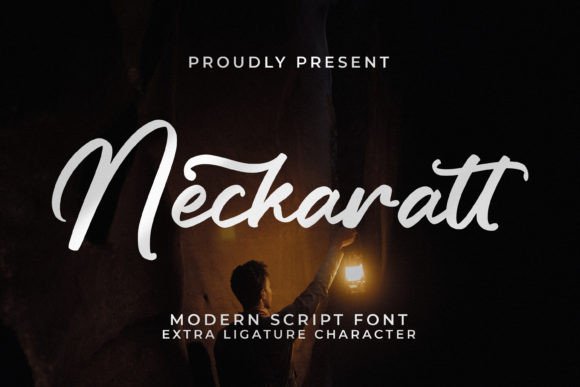
In a world where words dance and stories take flight, there exists a font of ethereal beauty, capable of transforming your creative visions into captivating realities. Introducing Neckaratt Font, a masterpiece of modern script typography, designed to ignite your passion and leave an unforgettable impression.
Neckaratt Font is the epitome of sophistication and elegance, meticulously crafted to bring a touch of luxury to your design projects. Its graceful curves and delicate flourishes evoke a sense of timeless charm, while its contemporary aesthetic ensures it remains relevant and impactful in the digital age.
Beyond its aesthetic appeal, Neckaratt Font is a practical choice for designers seeking efficiency and ease of use. Encoded with PUA, this font grants effortless access to a treasure trove of glyphs and ligatures, empowering you to unleash your creativity without technical hurdles.